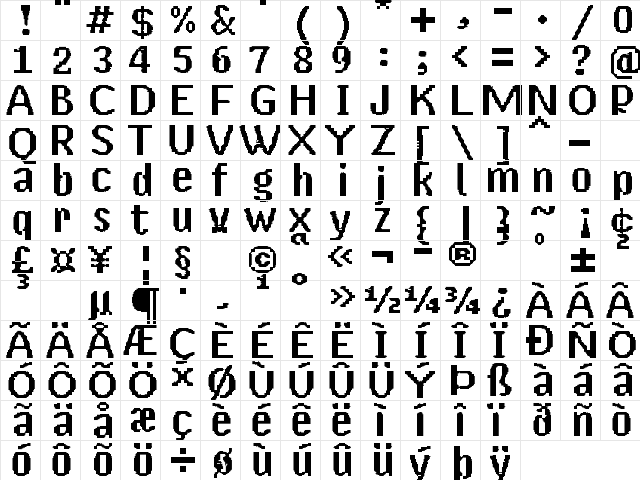
UF Mana-13 Bold
| Foundry | Ultrafonts |
| Designer | Hrant Papazian |
Design Context for UF Mana-13 Typeface
UF Mana-13 offers clean, dependable letterforms without strong stylistic allegiance, making it a practical choice for designers who need flexibility. The heavy weight commands attention and anchors typographic hierarchies.